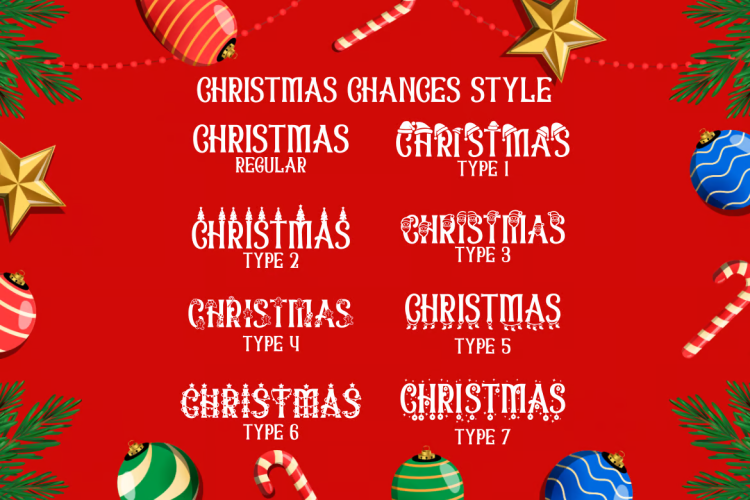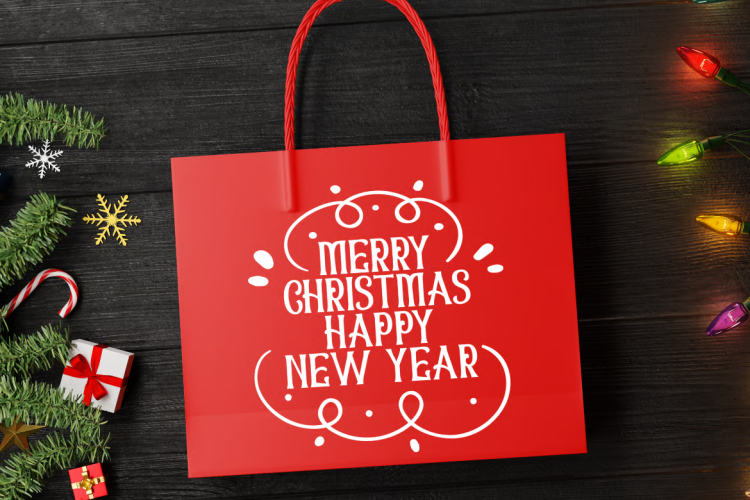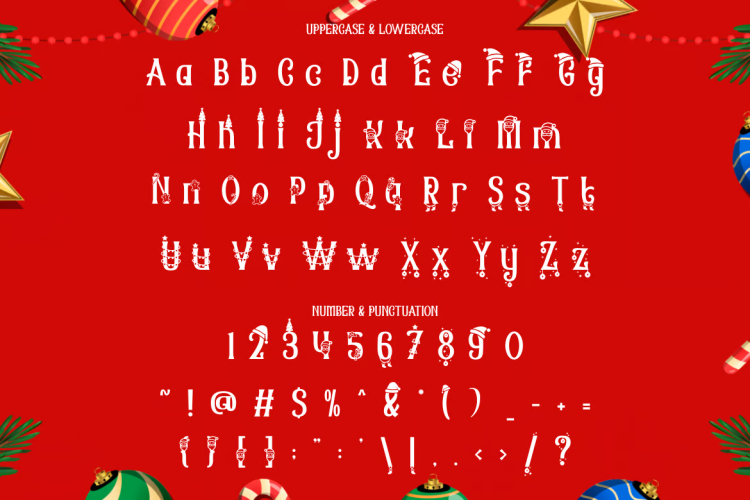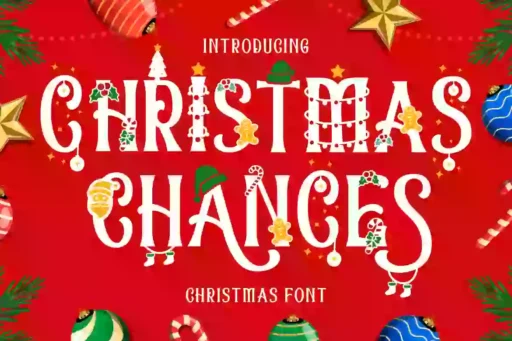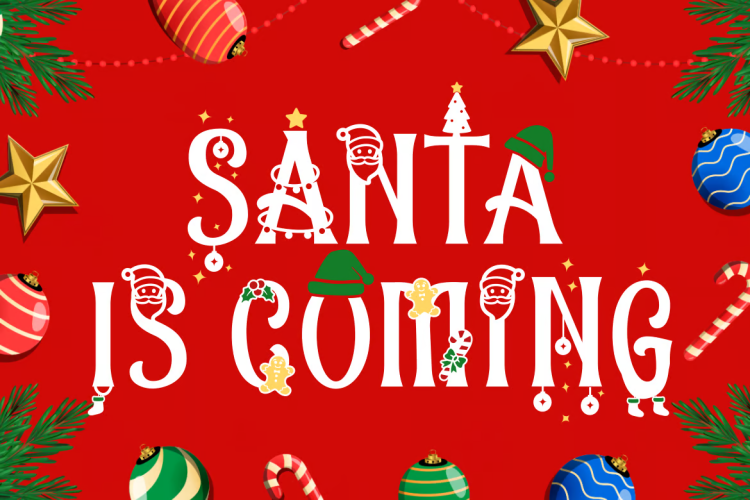
Christmas Chances Font
Christmas Chances – Christmas Font is a festive display typeface perfect for holiday projects. With graceful serif lettering, it provides refinement to your creations. It comes with ligatures and six different ornaments, including Santa hats, Christmas trees, Santa Claus, and more. This font is ideal for greeting cards, invitations, mugs, gifts, and ornaments and will add a festive touch to your creations.
Where Christmas Chances Font works best
Christmas Chances Font gives long-form text a classic, trustworthy rhythm — ideal for magazine spreads, annual reports and book interiors.
Pair Christmas Chances Font with generous letter-spacing for wordmarks in fashion, hospitality, wine and jewellery branding.
Use Christmas Chances Font for slide titles in Keynote, PowerPoint or Google Slides to add authority without looking dated.
What is Christmas Chances Font good for?
Christmas Chances Font is a Serif Fonts typeface tagged Display, Elegant, Serif, Serif Fonts. It works well for headlines, logos, posters, social media graphics and branding projects that need a distinctive serif fonts look.